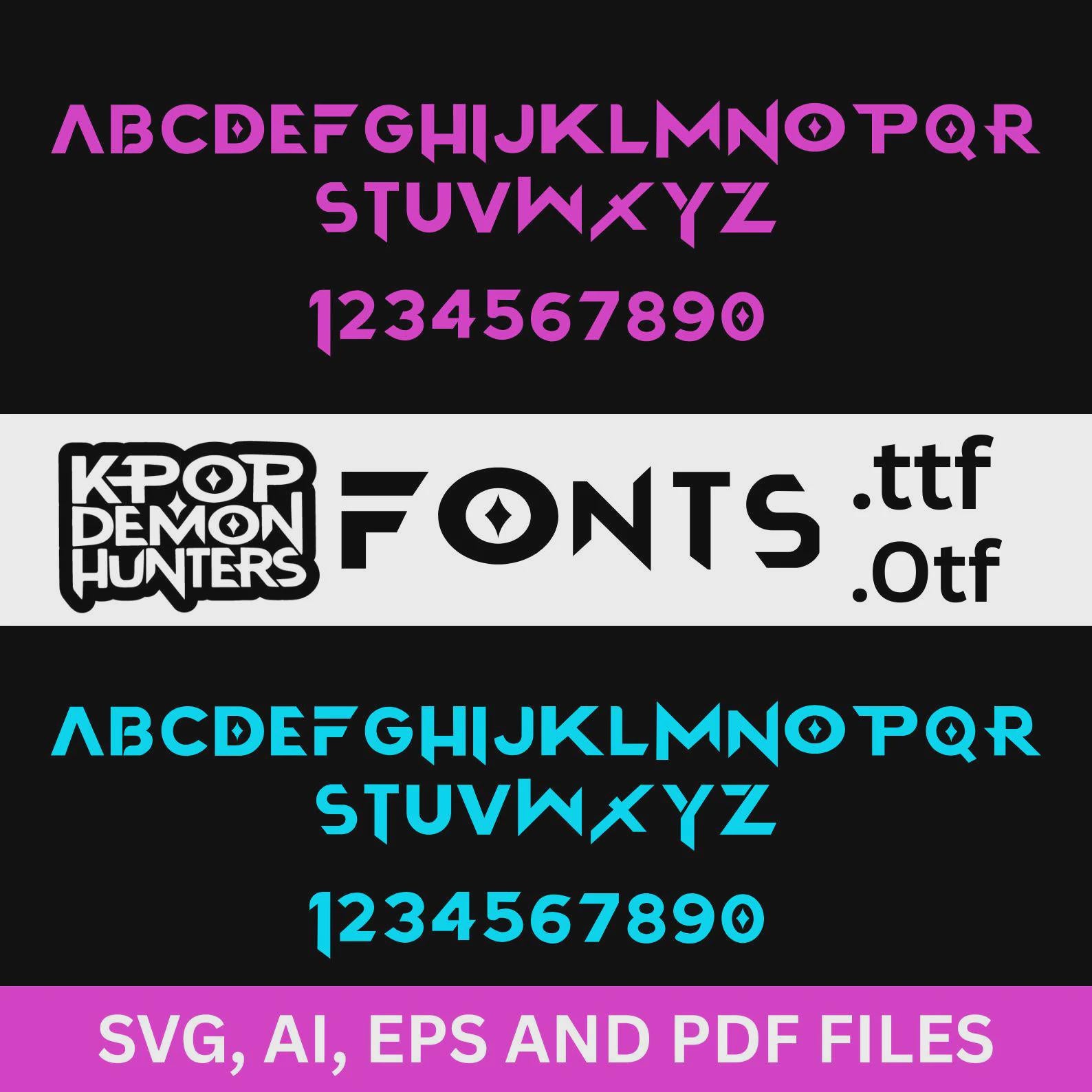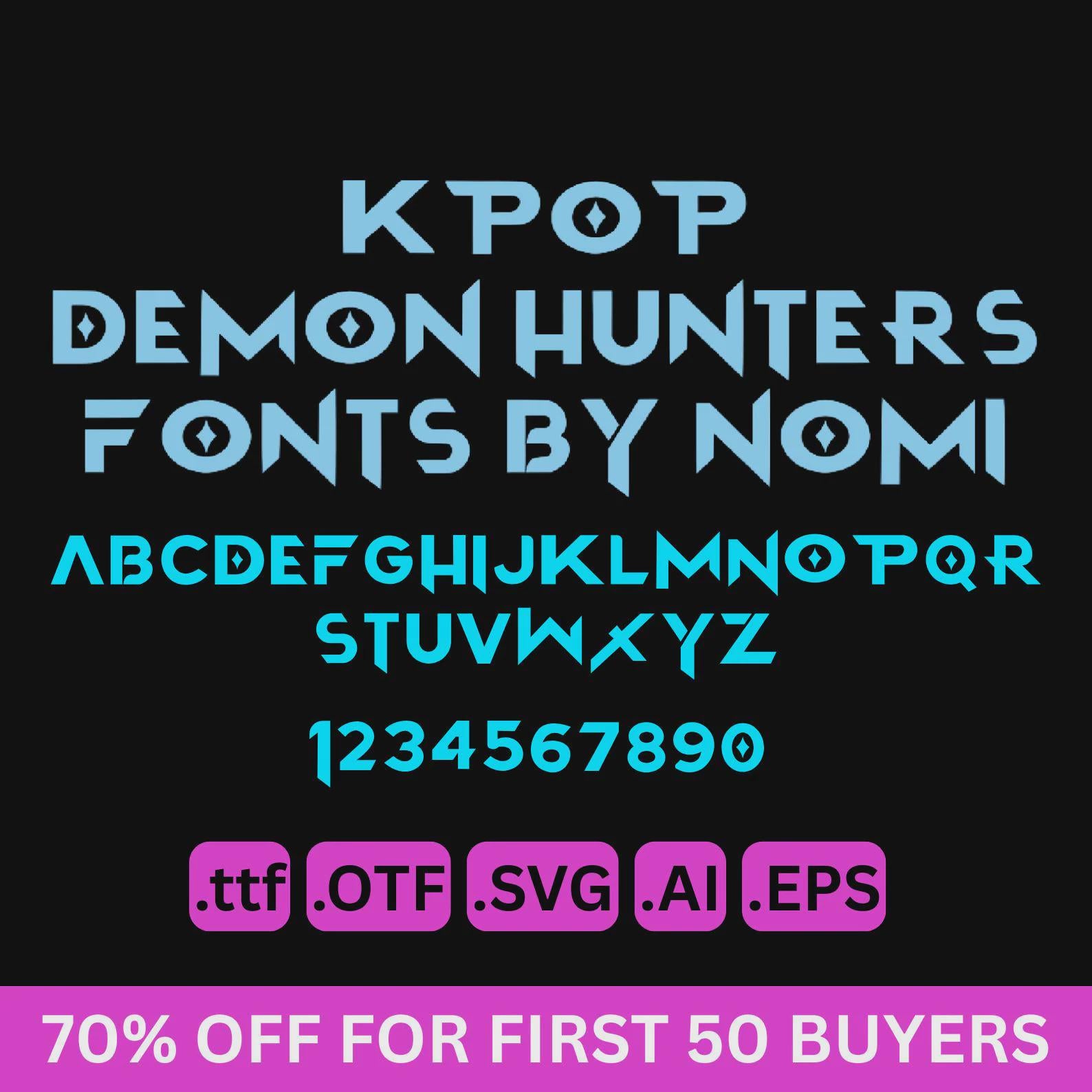
Kpop Demon Hunters Huntrix Anime Font Bundle OTF TTF SVG
Character set Uppercase, lowercase, numerals, punctuation
Recommended uses Apparel, stickers, posters, thumbnails, social media graphics, logos